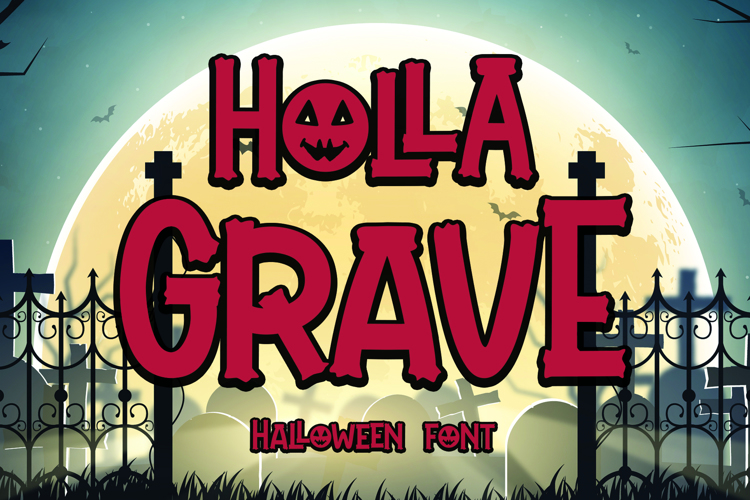
Holla Grave Font
Holla Grave is a creepy, bold and thick lettered display font. Add it confidently to your favorite creations and let yourself be amazed by the outcome generated.